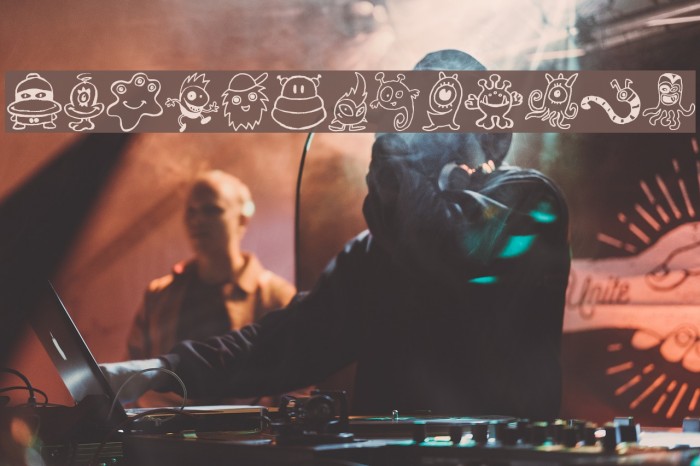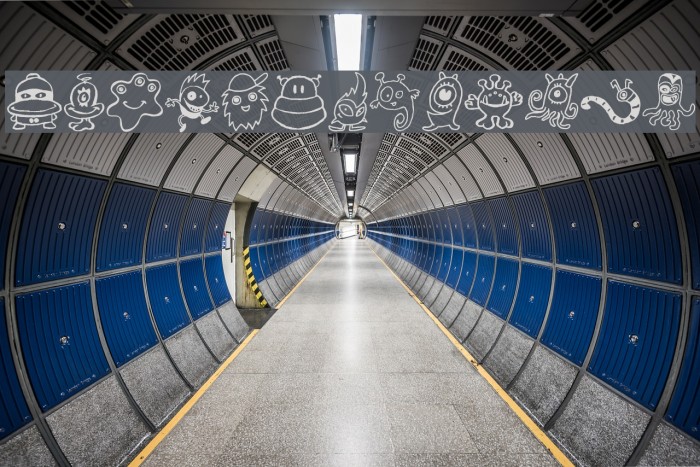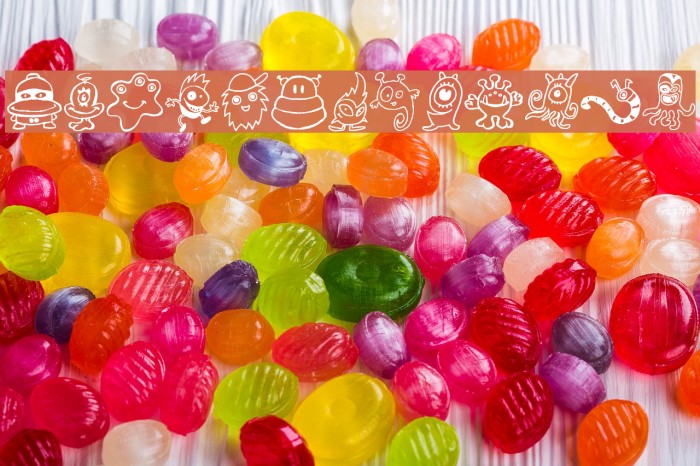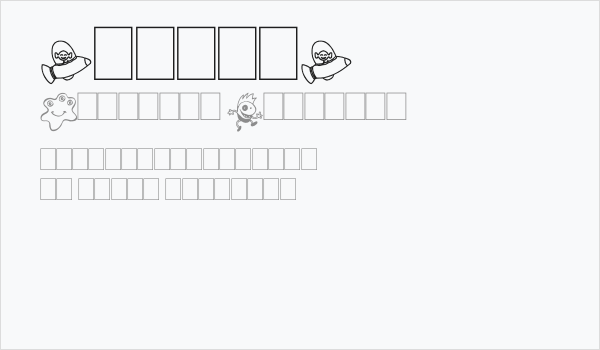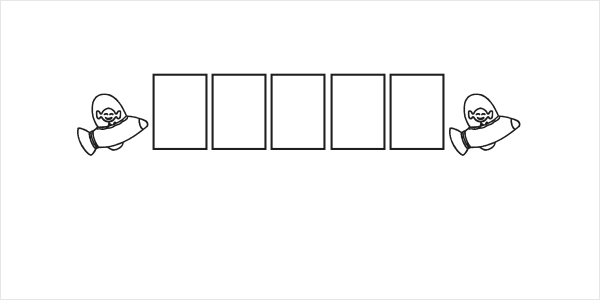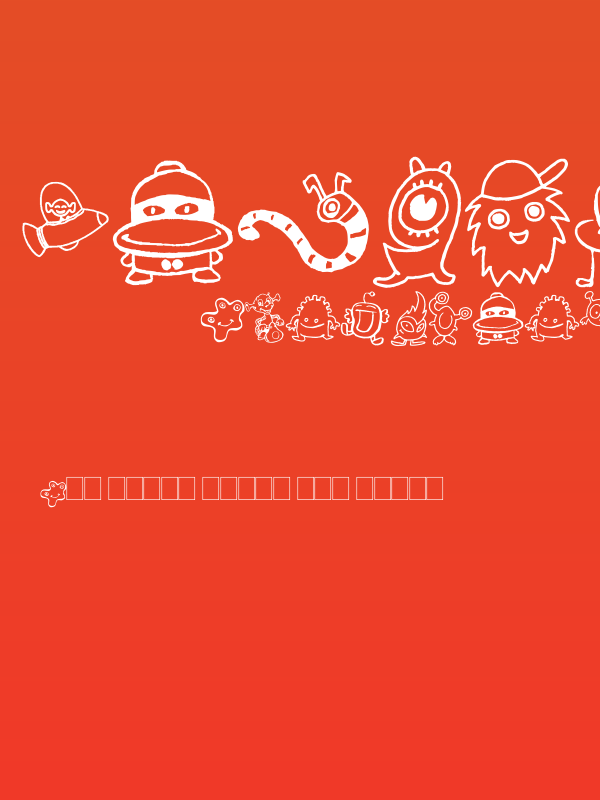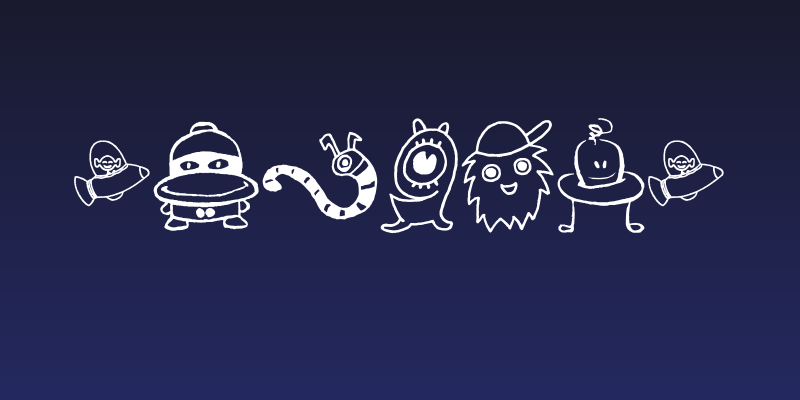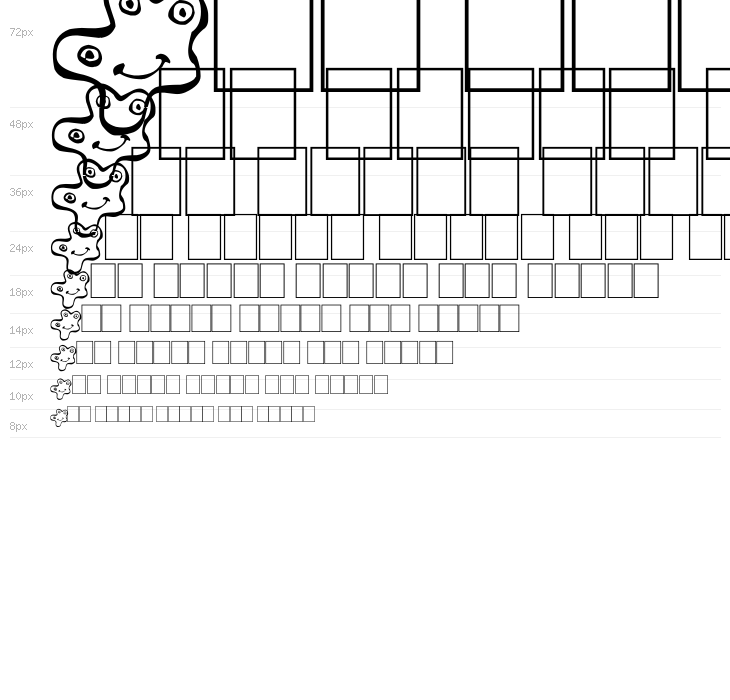
ZalienZ Font
ZalienZ Description
This whimsical and playful font features a series of unique alien-like characters, each with distinct personalities and expressions. The design is highly decorative, with each character resembling a cartoonish extraterrestrial creature. The style is imaginative and fun, making it ideal for projects that require a touch of humor and creativity. The characters are well-defined with bold outlines, and the overall appearance is both engaging and entertaining. This font is perfect for children's materials, playful branding, or any project that aims to capture a sense of wonder and amusement.
| Use Case | Logos, Posters, Children's materials |
| Proposed Projects | Ideal for children's books, playful branding, party invitations, and creative posters. |